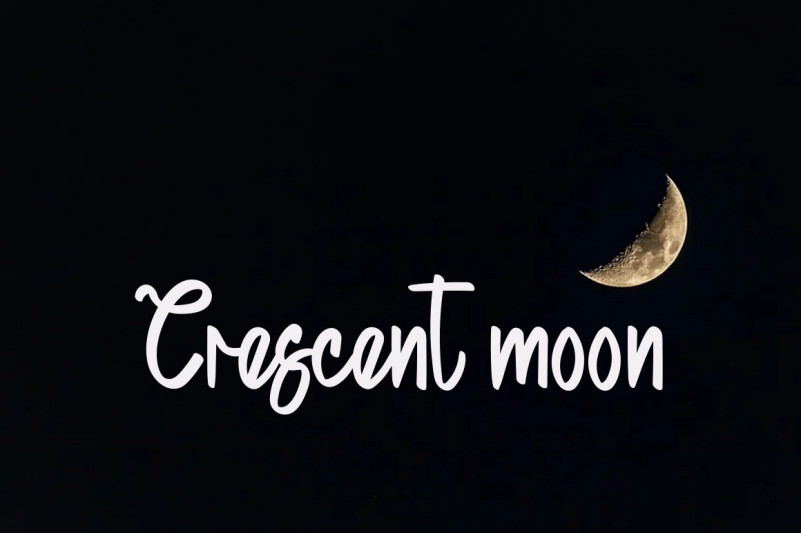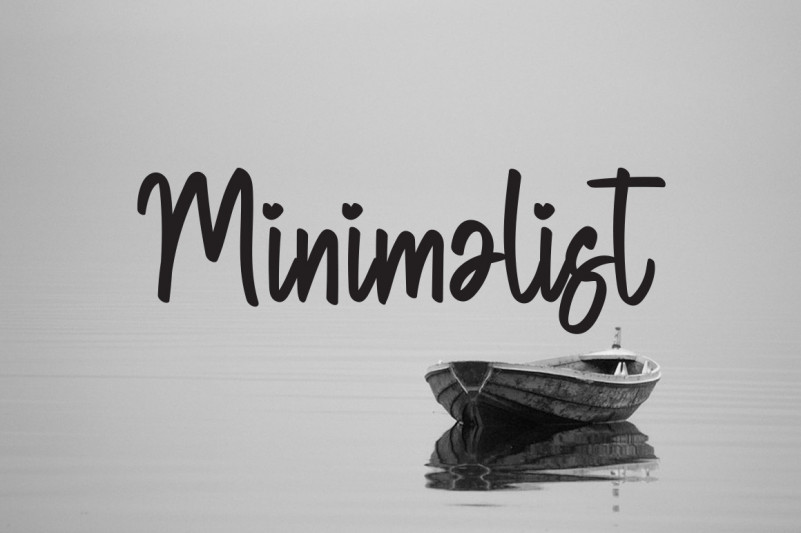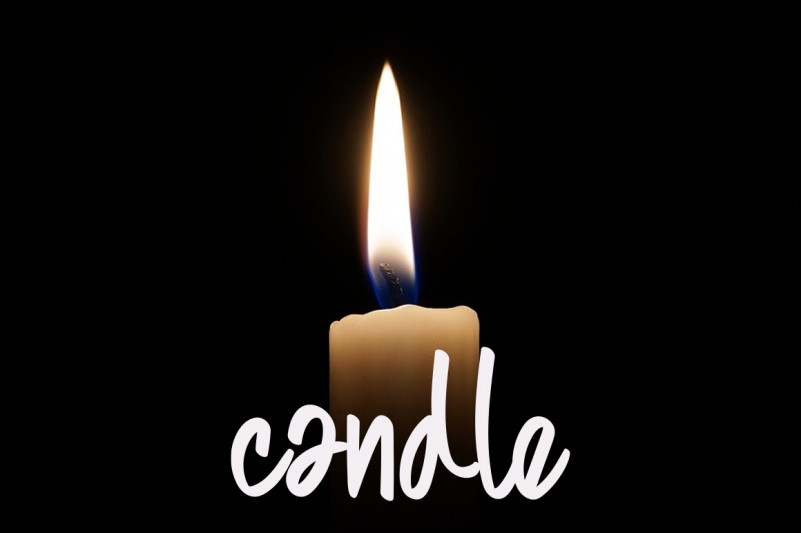
Creative Vintage Script Font
This is a unique, fun and friendly handwritten font. Whether you’re looking for a font for Instagram or a calligraphy script for a DIY project, this font will turn any creative idea into a true work of art!